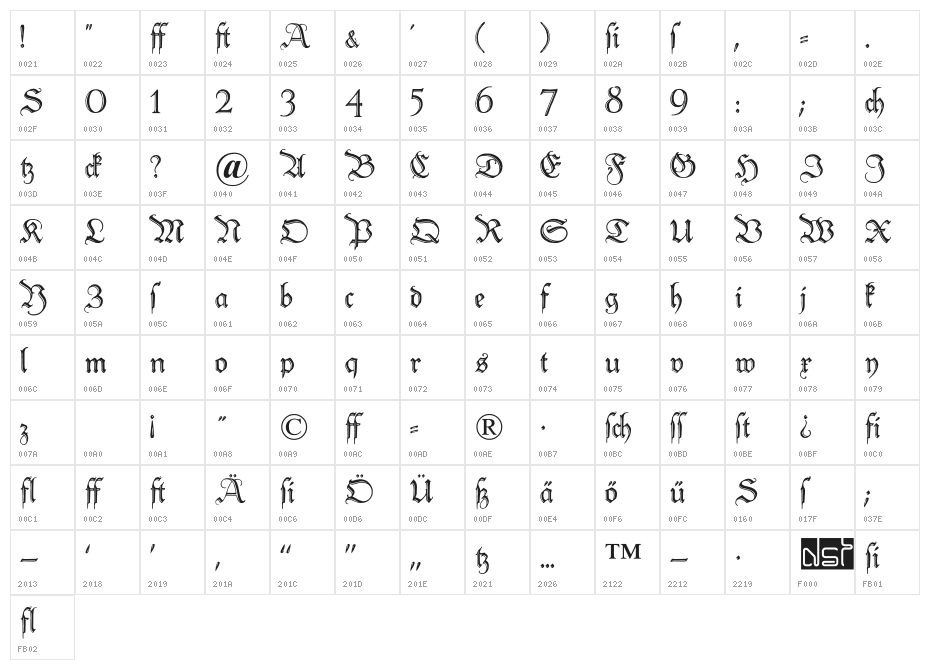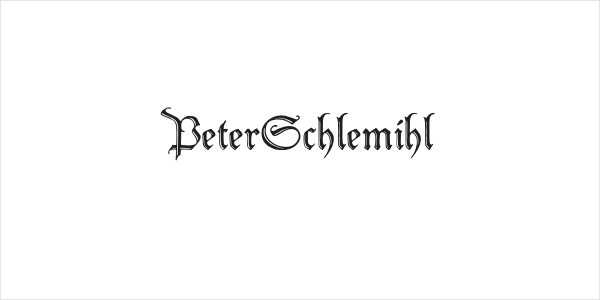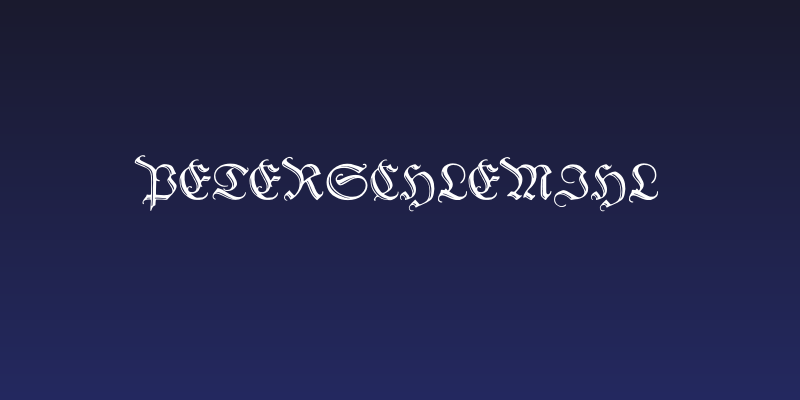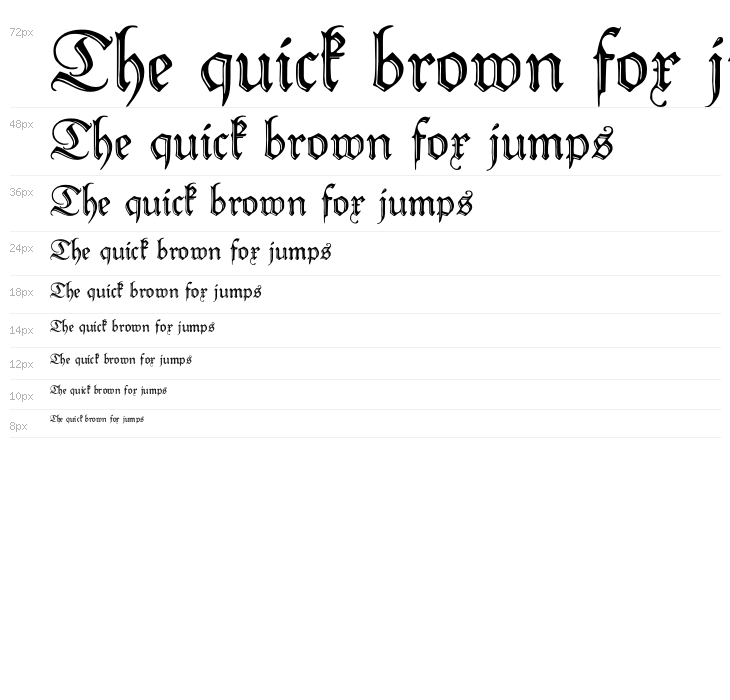
PeterSchlemihl Font
PeterSchlemihl Description
This font exhibits a classic blackletter style, characterized by its ornate and intricate design. The uppercase letters feature sharp, angular strokes with decorative flourishes, while the lowercase letters maintain a consistent gothic aesthetic. The numerals are bold and distinct, matching the elaborate style of the alphabet. Special characters are equally detailed, enhancing the overall medieval appearance. This font is reminiscent of traditional calligraphy, often associated with historical documents and old manuscripts.